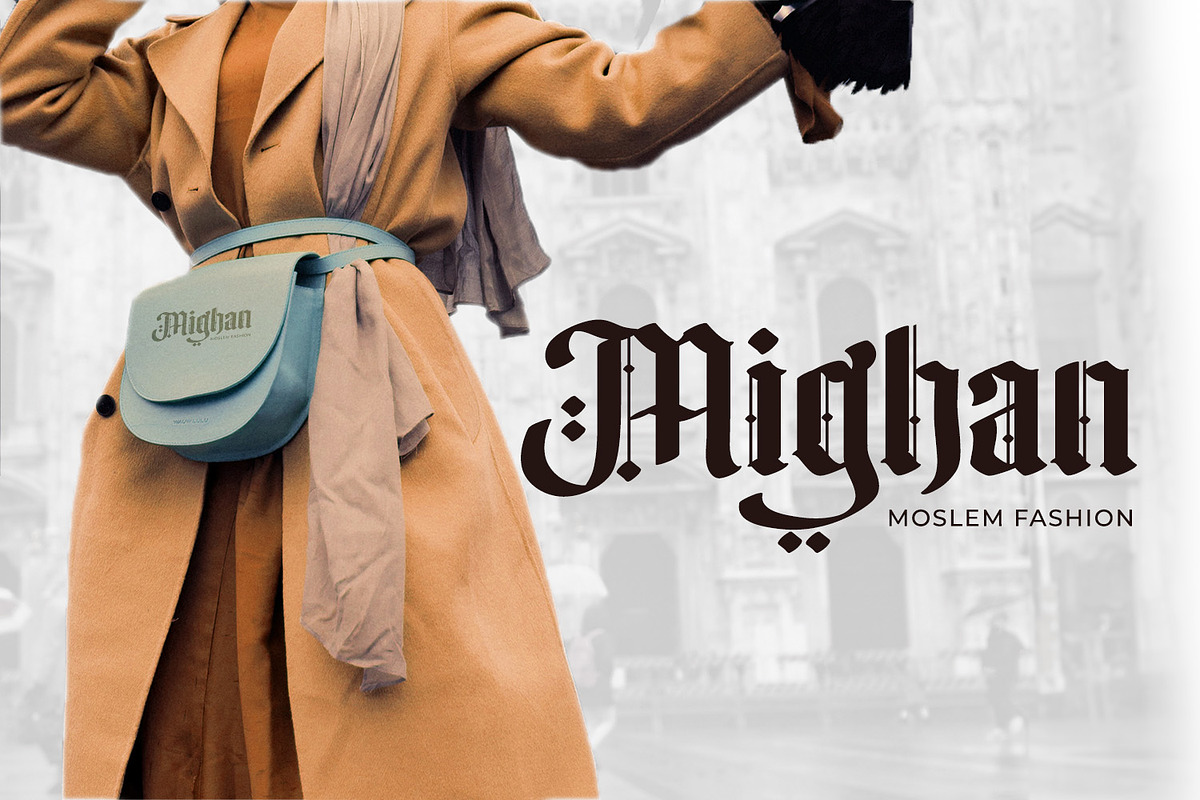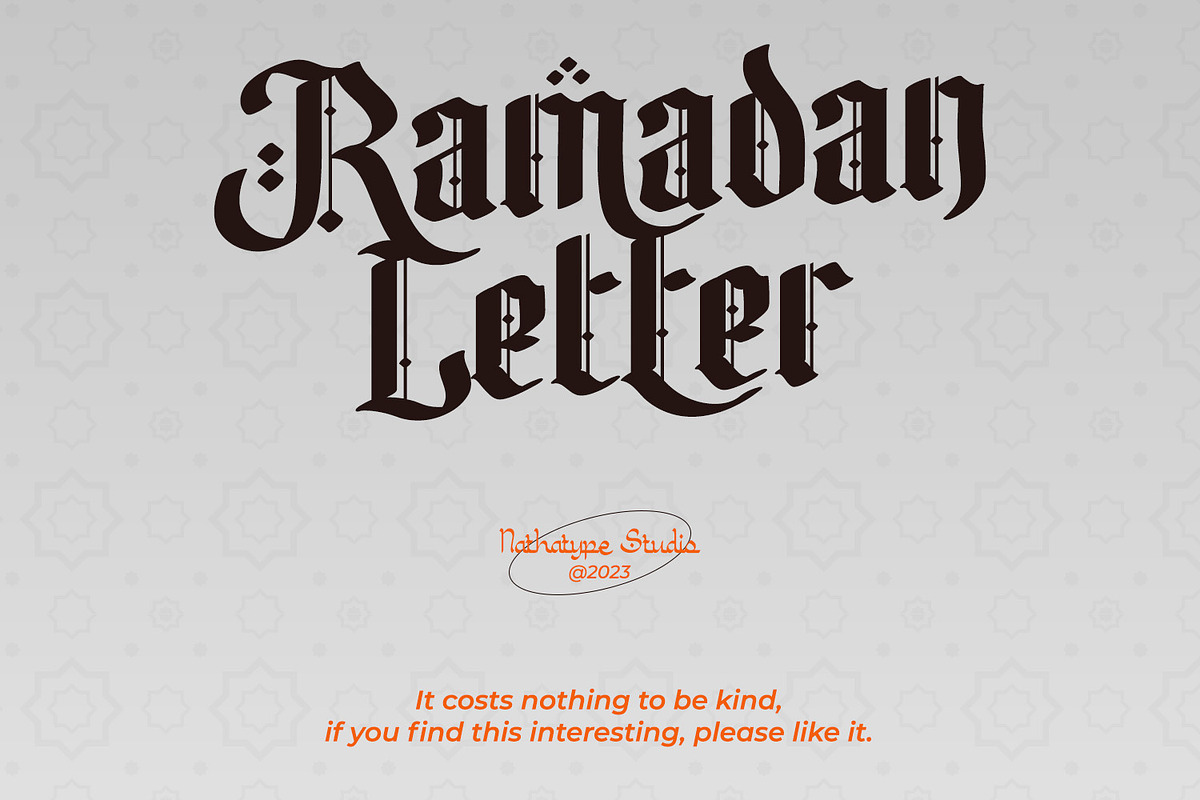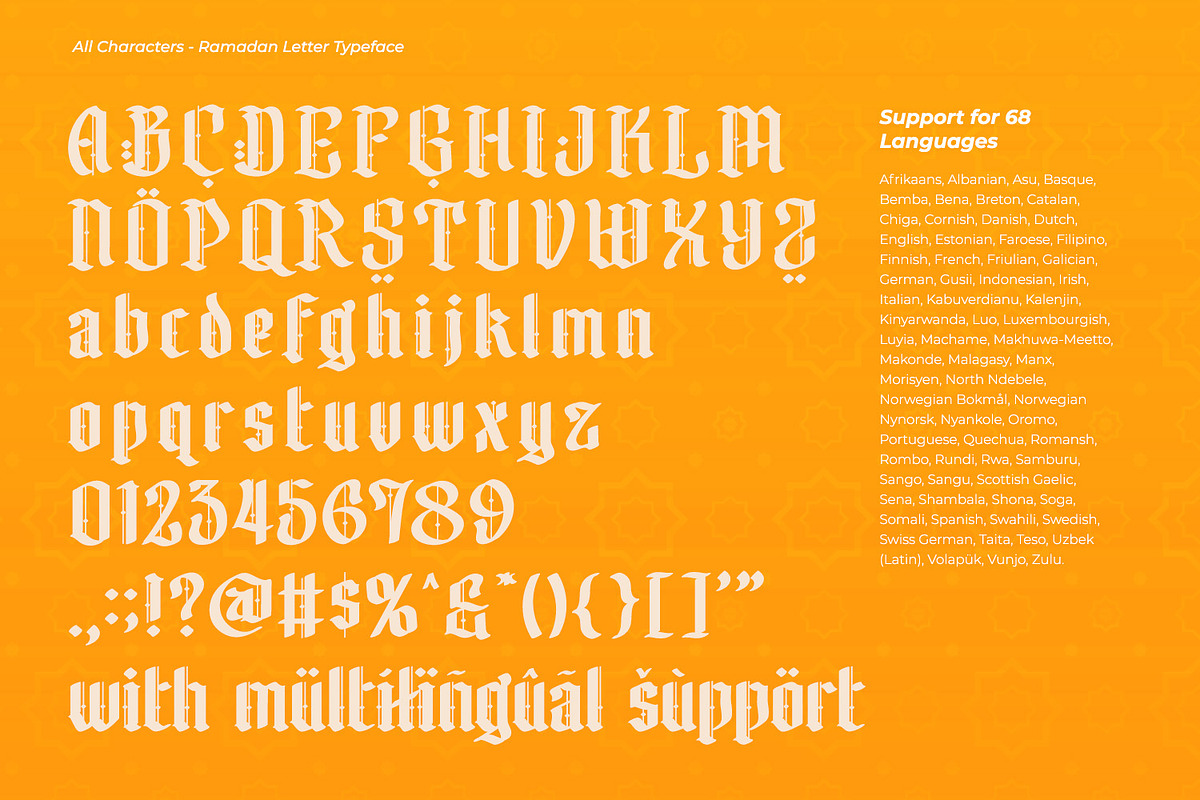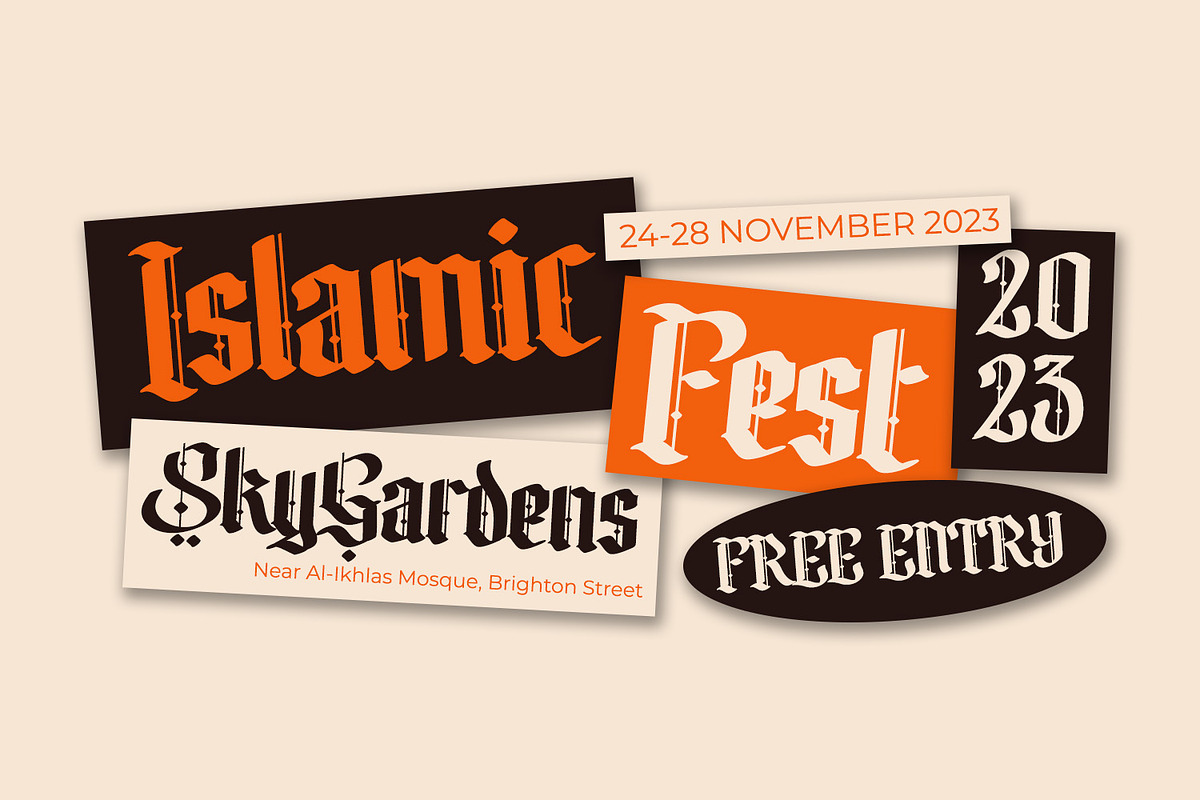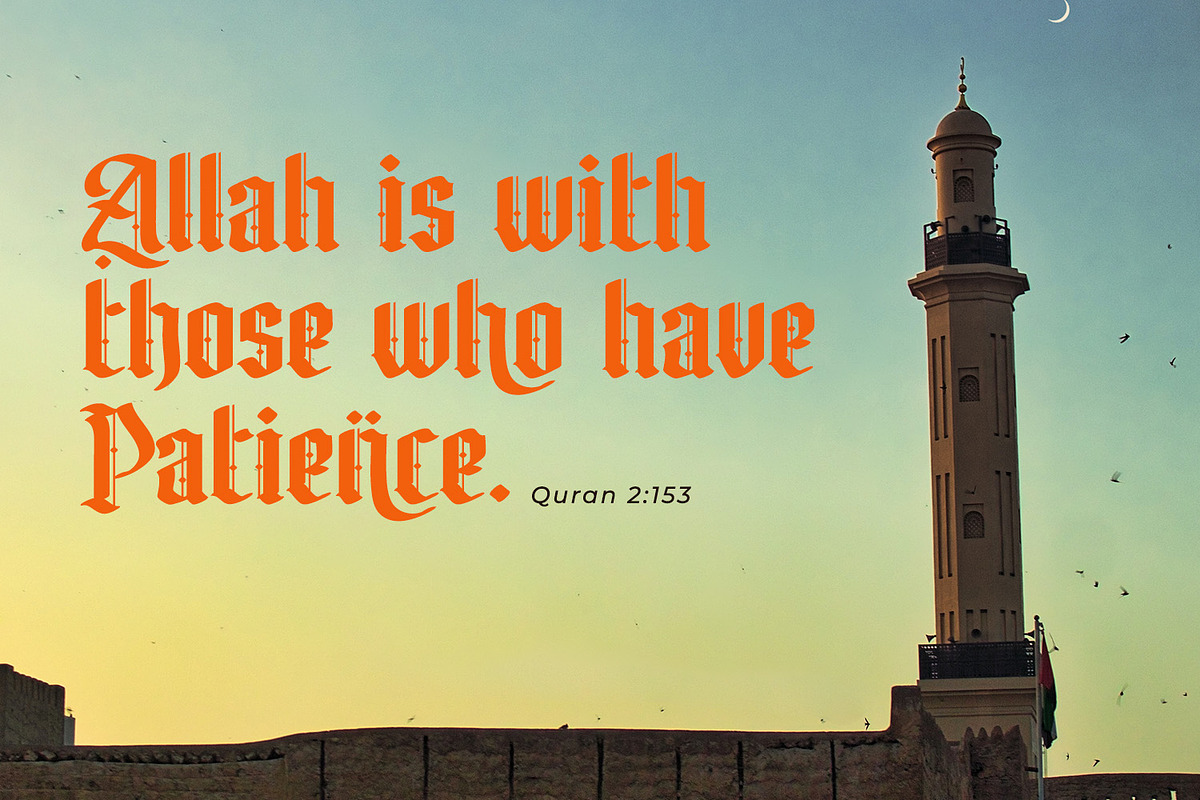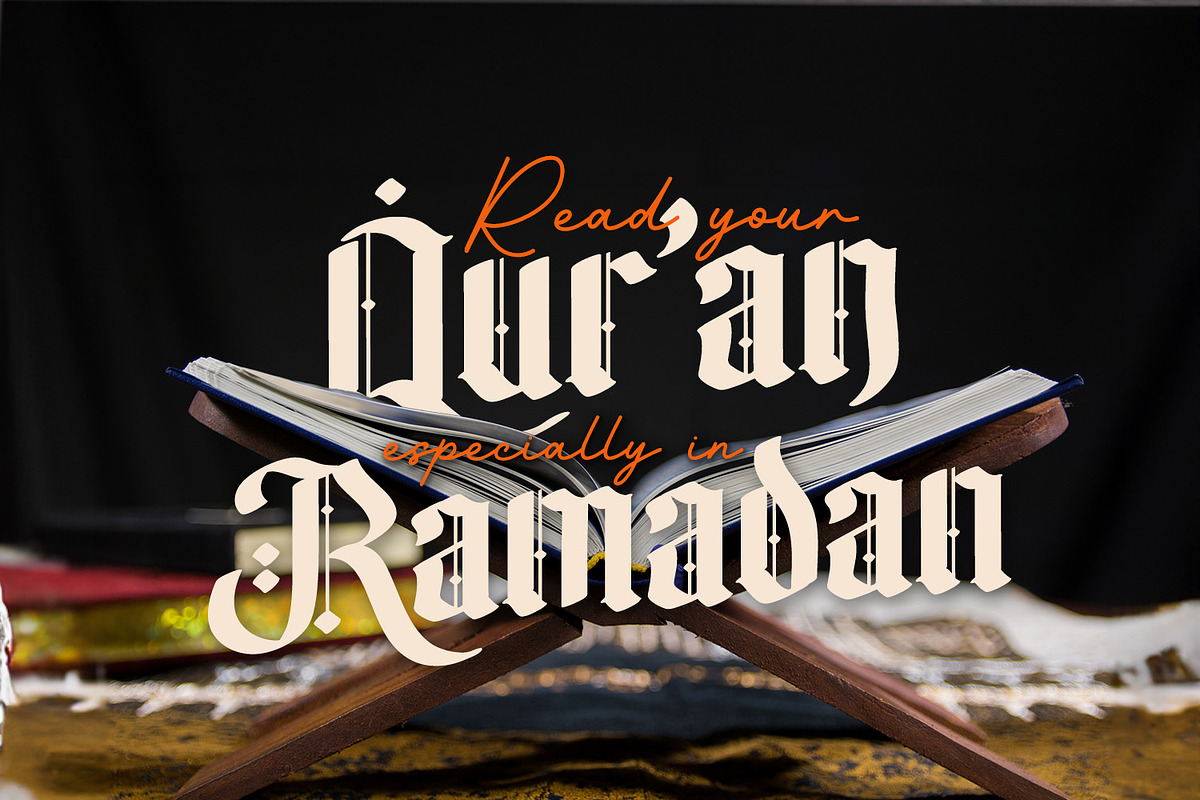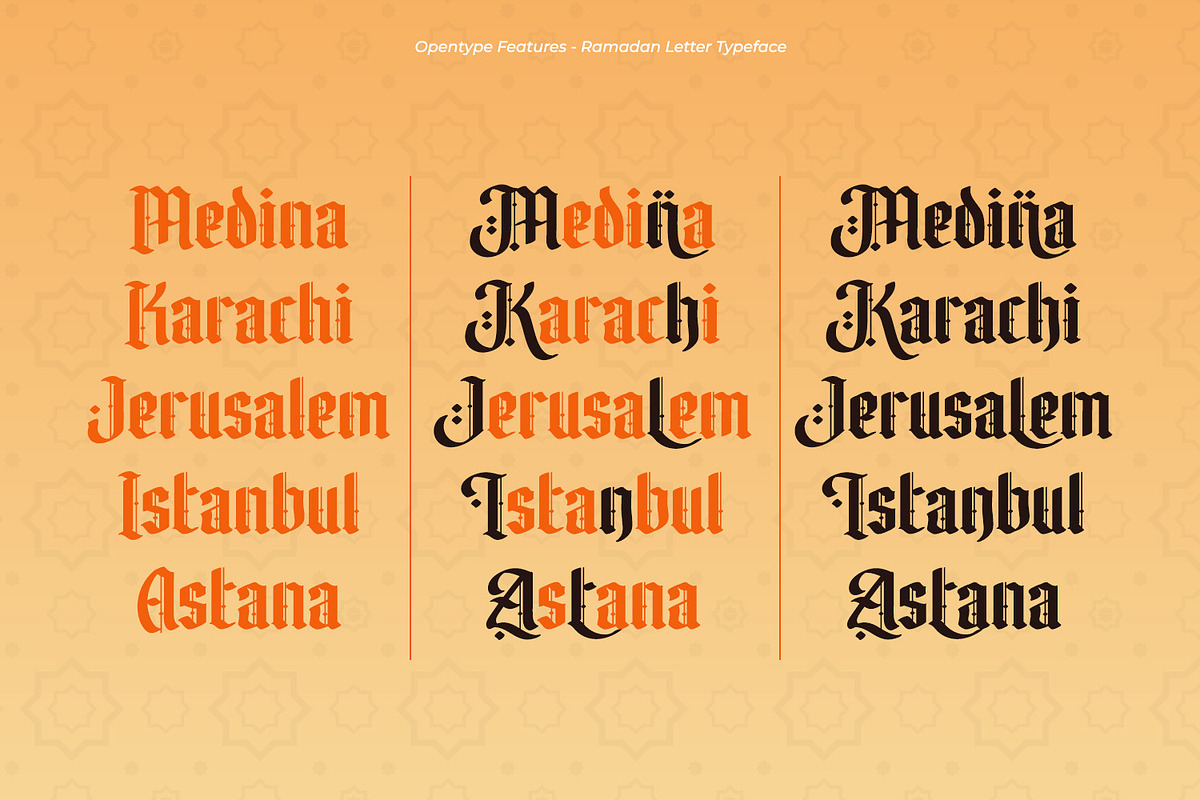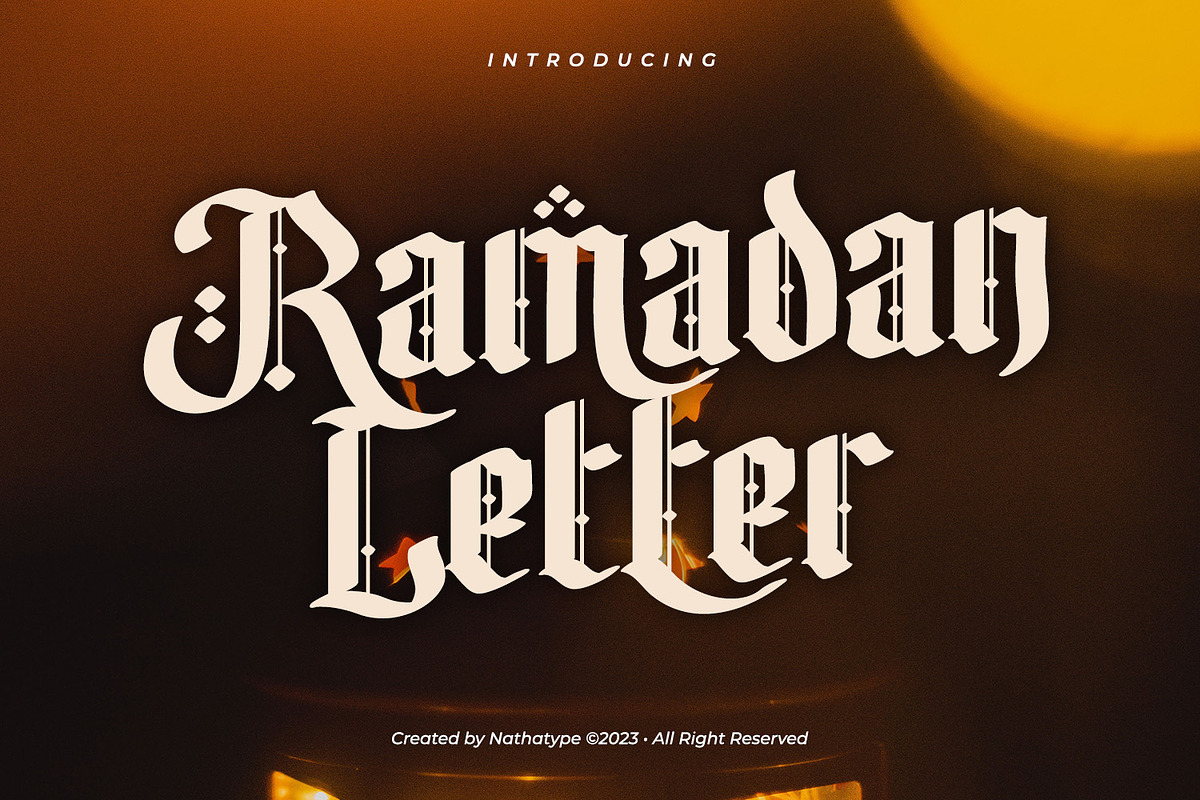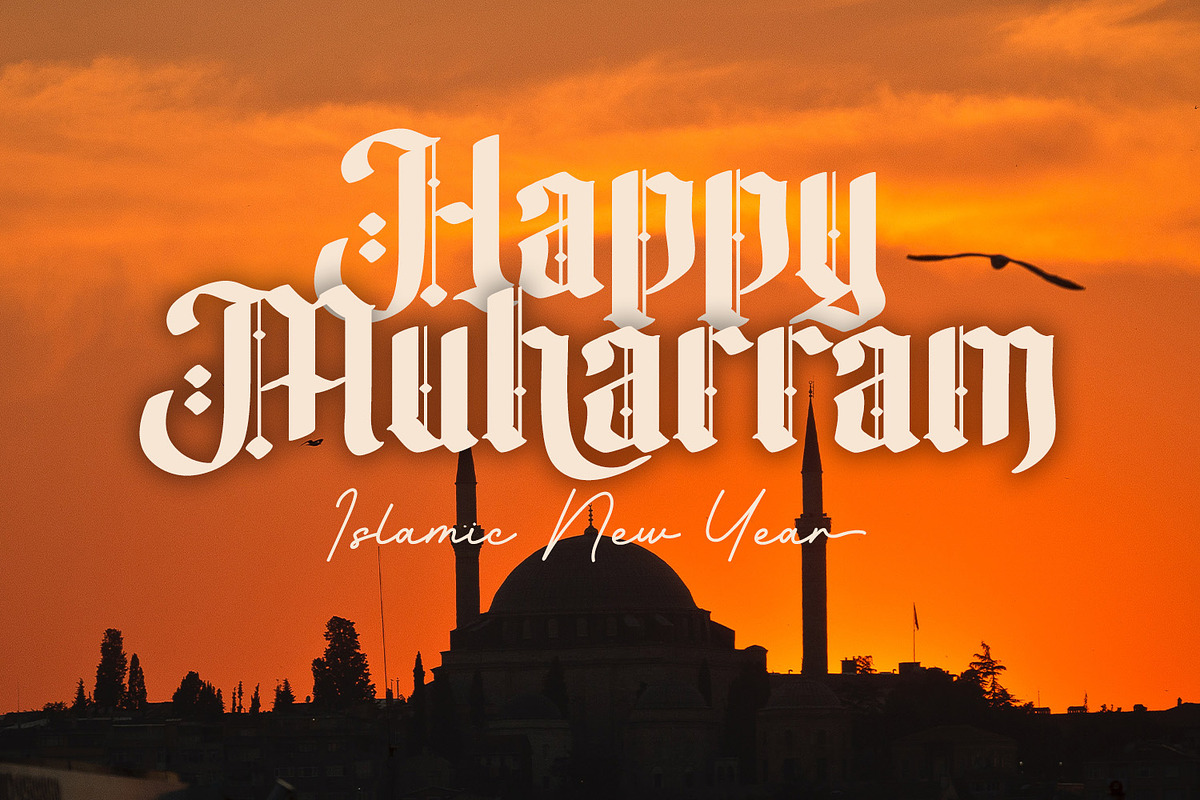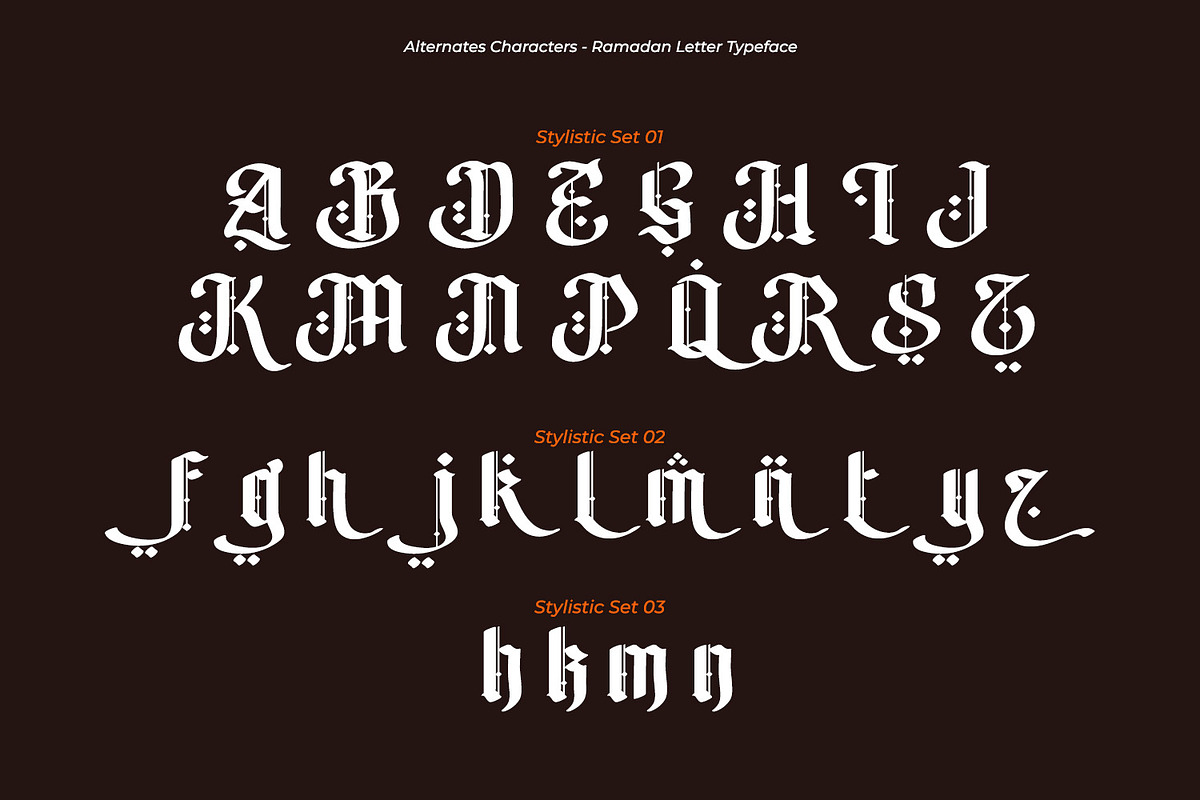
Ramadan Letter
Ramadan Letter is a striking display font that draws its inspiration from the intricate beauty of Arabic calligraphy. Ramadan Letter is more than just a font; it's a symbol of heritage and visual artistry. It's the perfect choice for projects that require a touch of cultural sophistication and a bold presence.
The characters in Ramadan Letter are meticulously designed with a substantial weight that exudes a sense of boldness and presence. The elegant line ornaments add intricate details, enhancing the font's beauty and cultural significance. The low contrast between letters ensures legibility and a harmonious visual flow. In addition, you can also enjoy the features here.
- Stylistic Sets
Ramadan Letter fits in headlines, logos, posters, flyers, branding materials, print media, editorial layouts, and many more designs. Find out more ways to use this font by taking a look at the font preview.